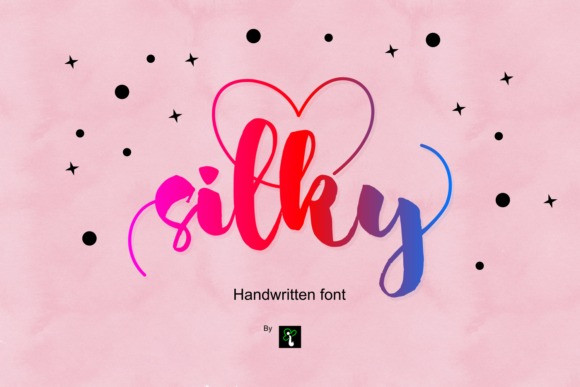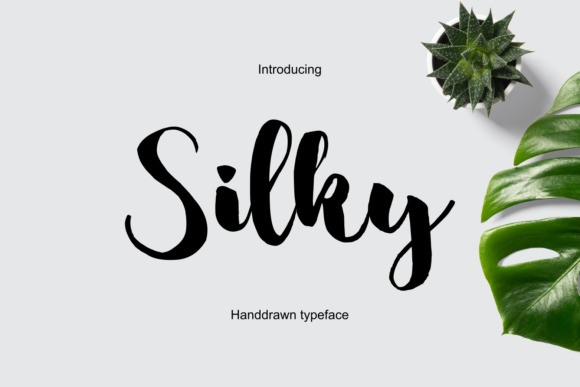
Silky Font
Silky Script Font is a lovely and delicate script font that exudes elegance and class. This font was particularly crafted for those designs who need a beautiful and refreshing look to their designs. Silky is PUA encoded which means you can access all of the glyphs and swashes with ease!